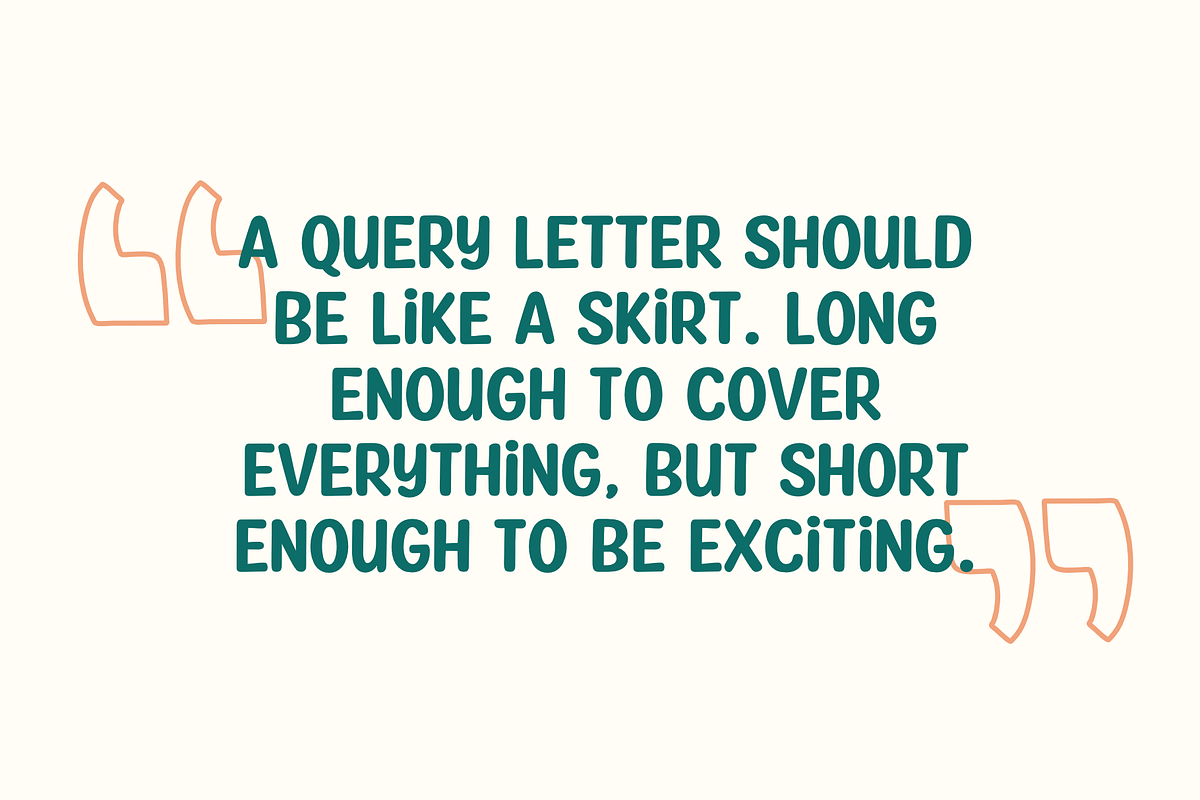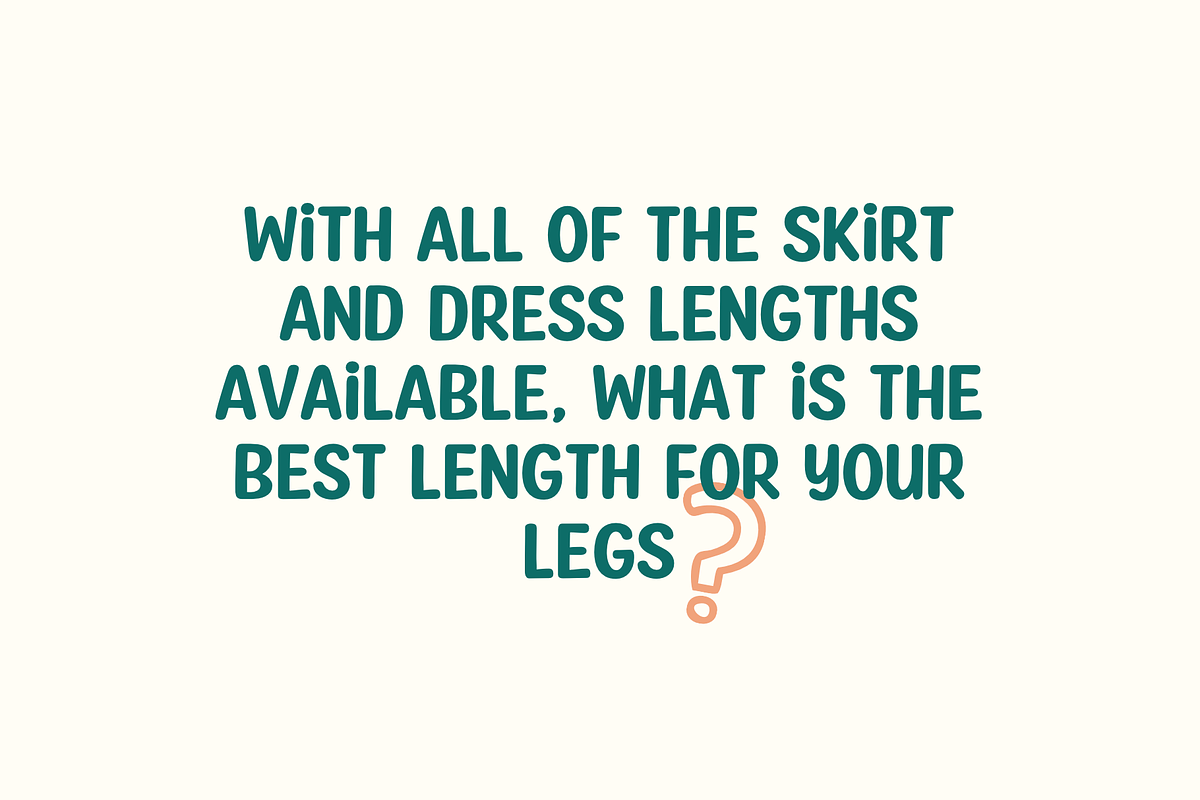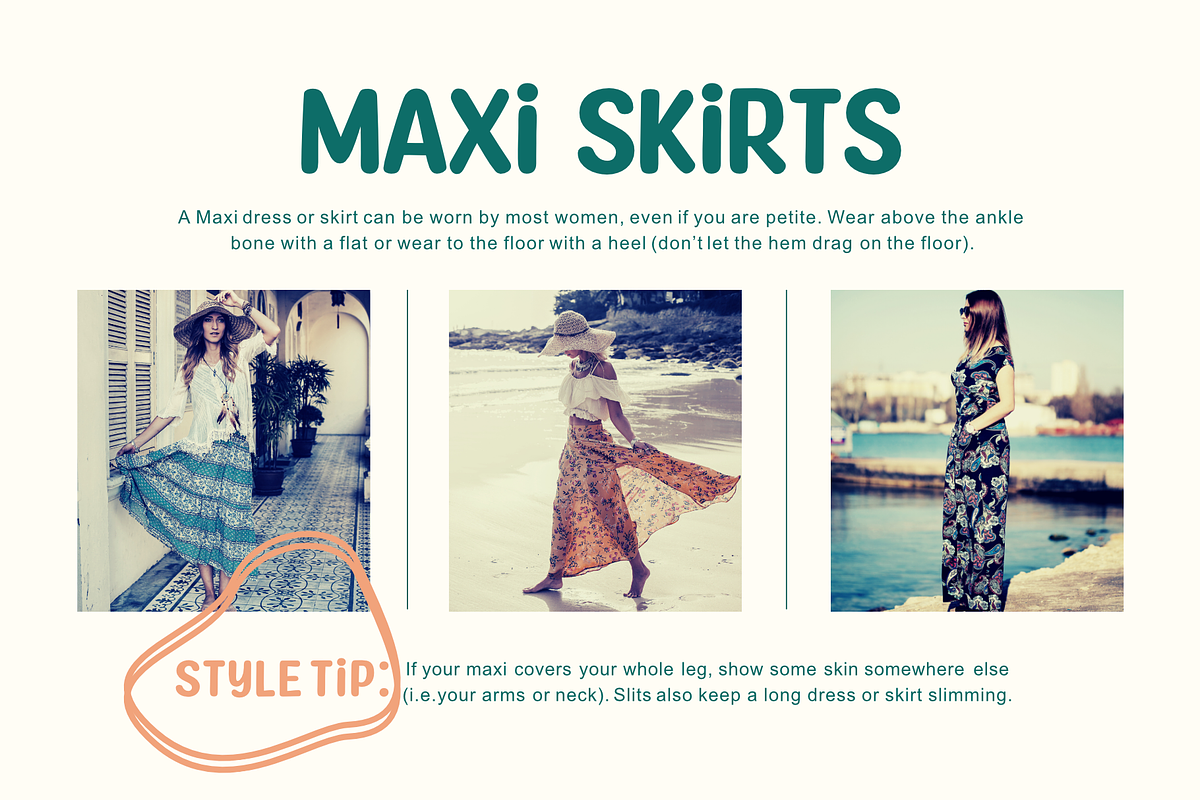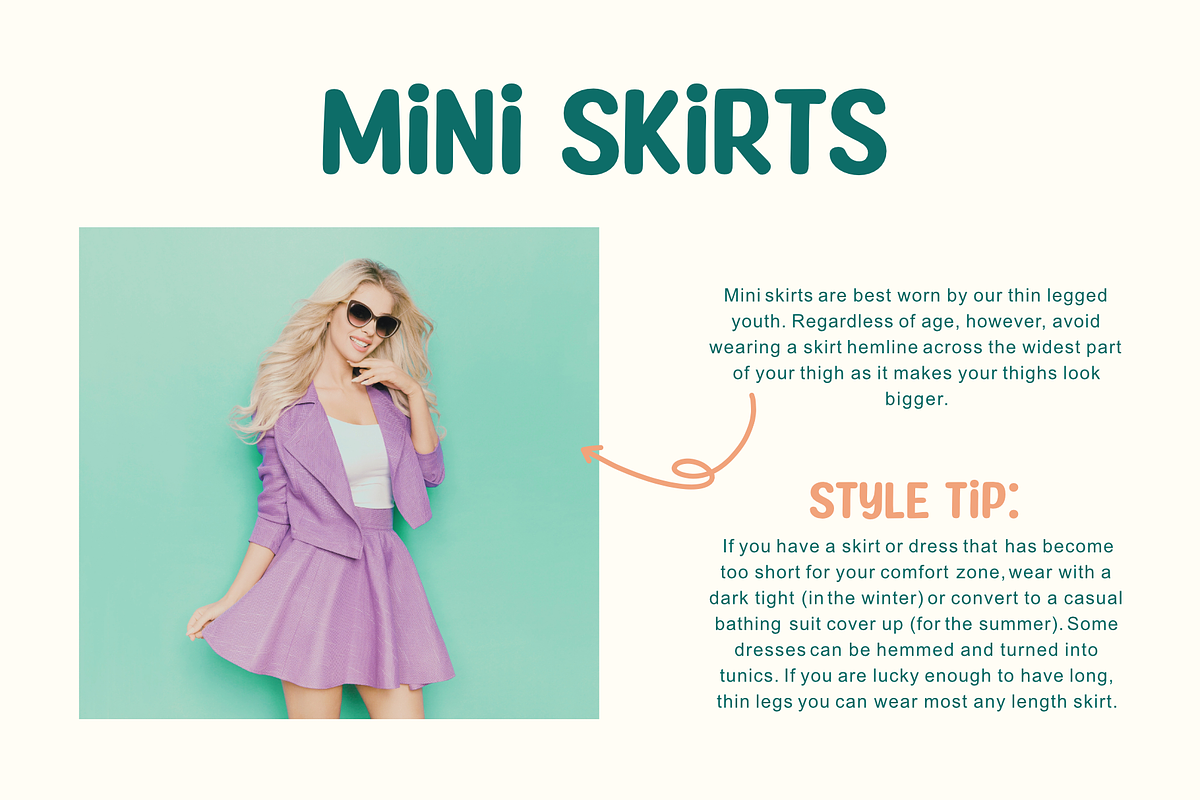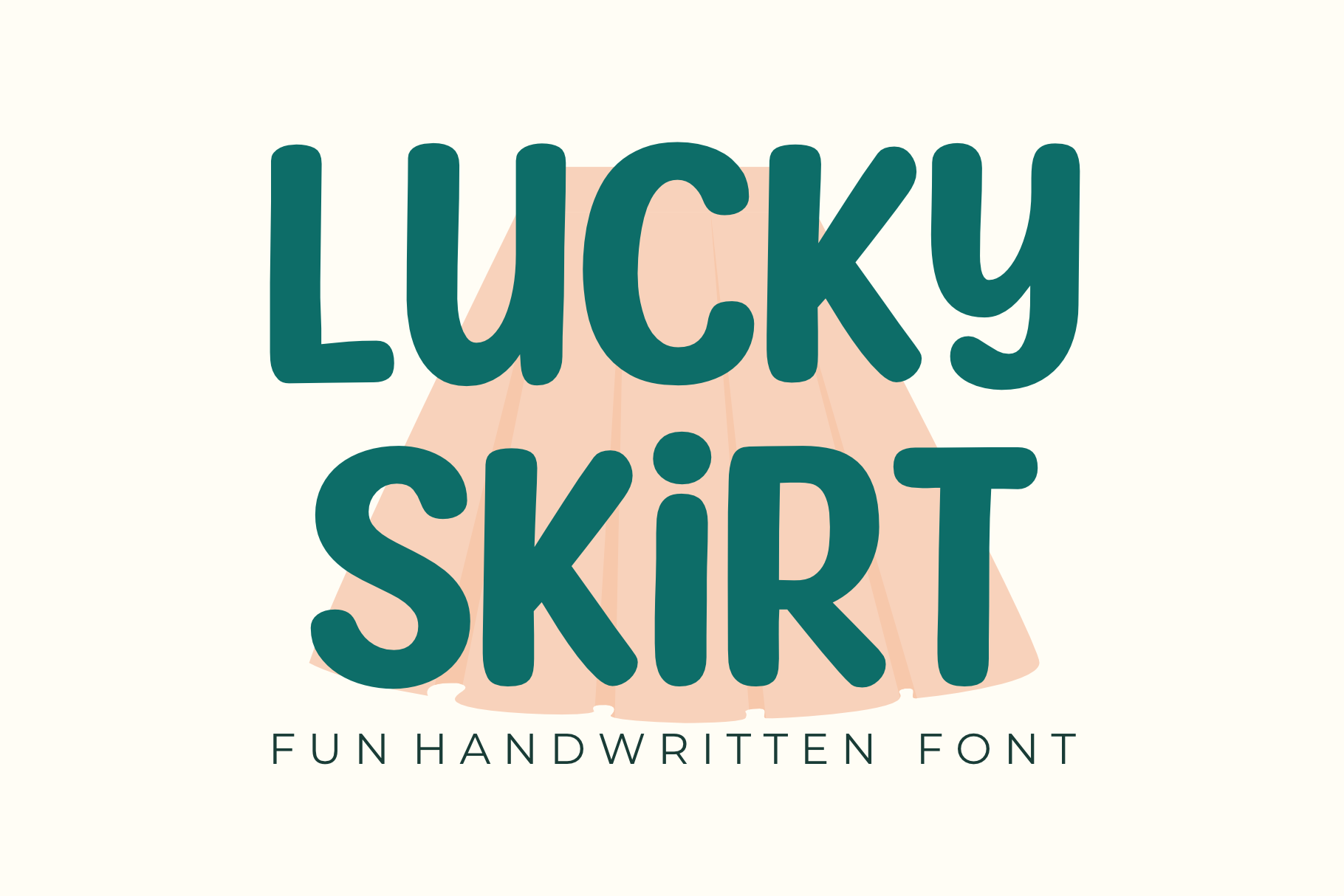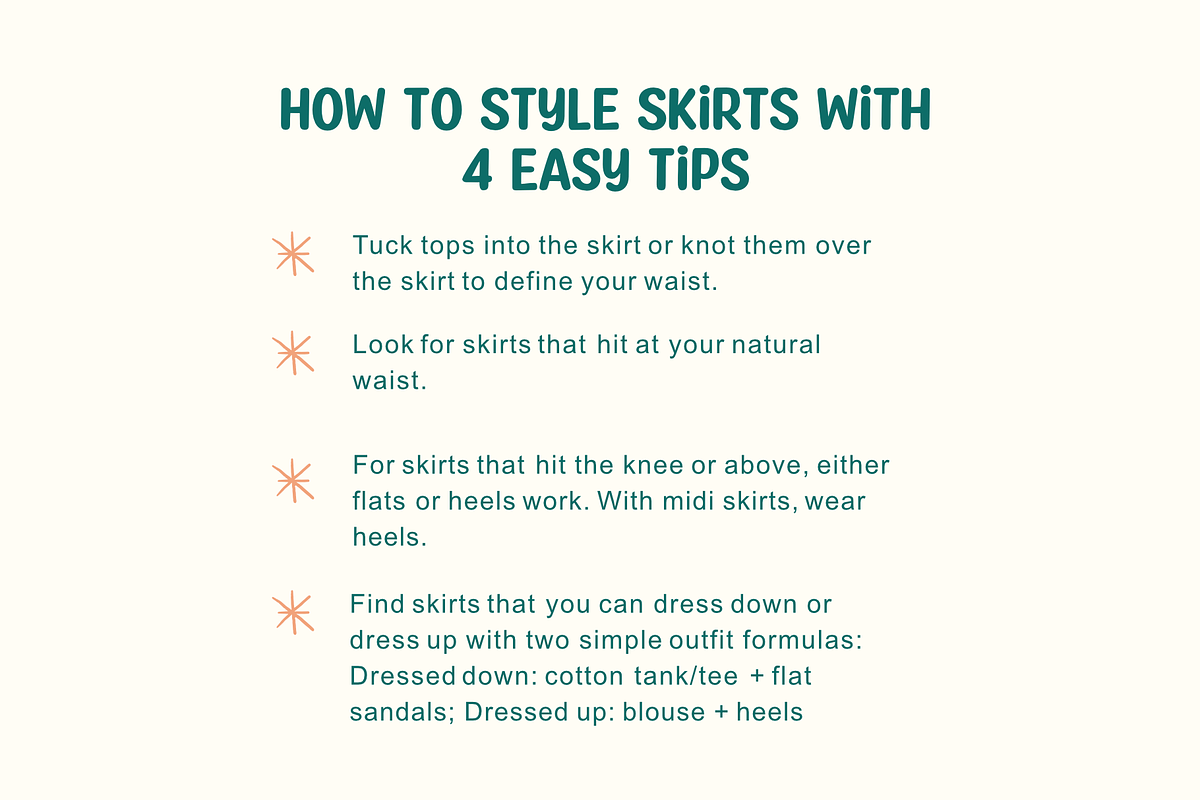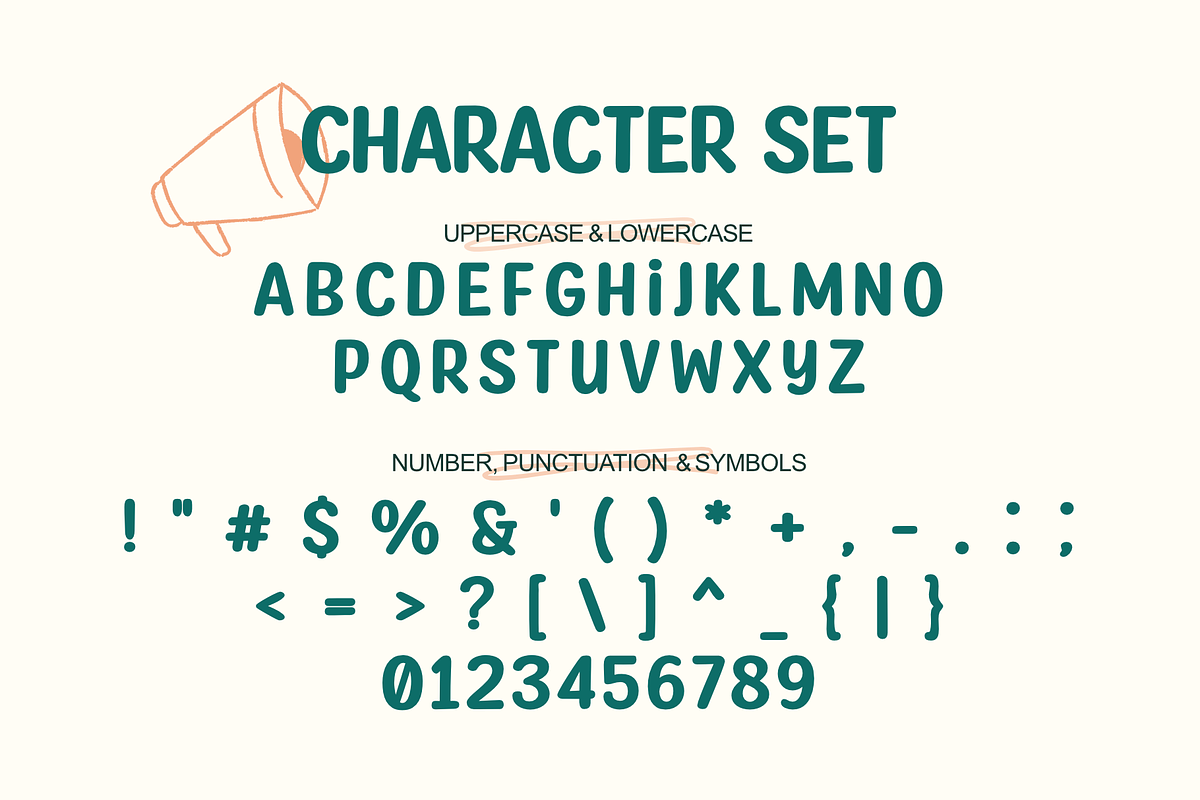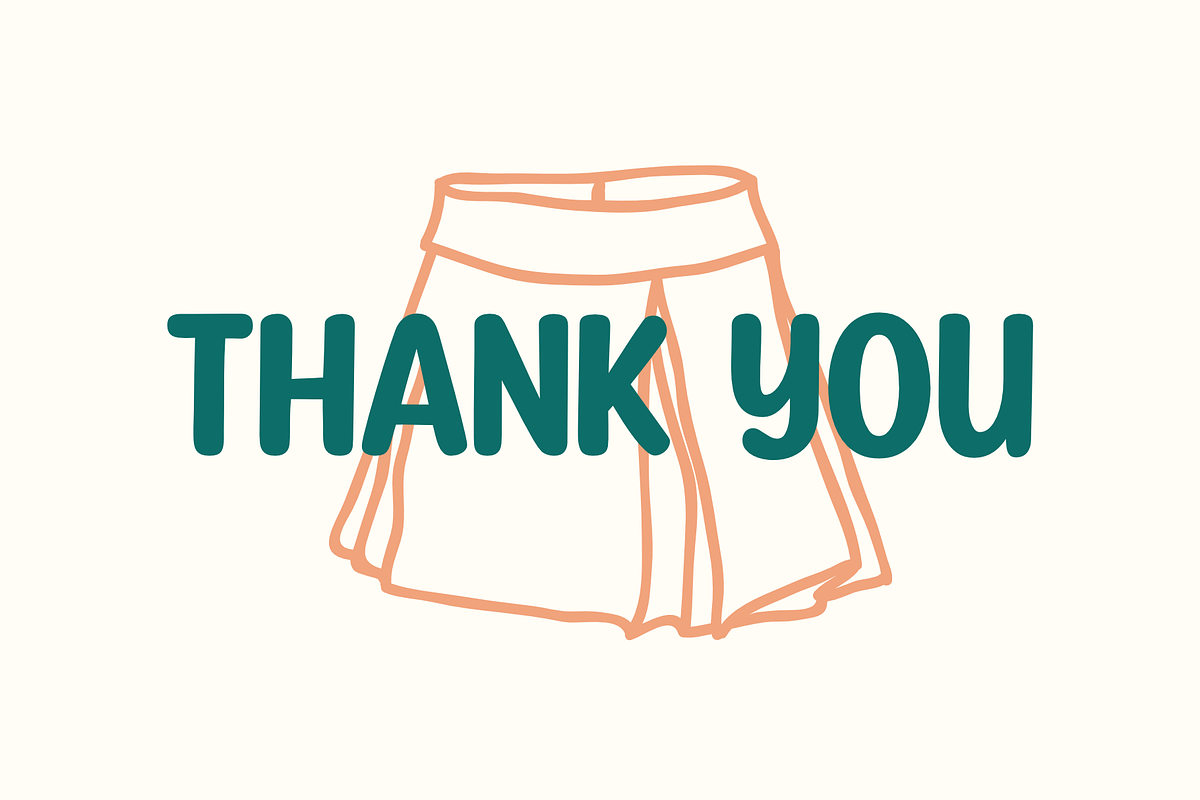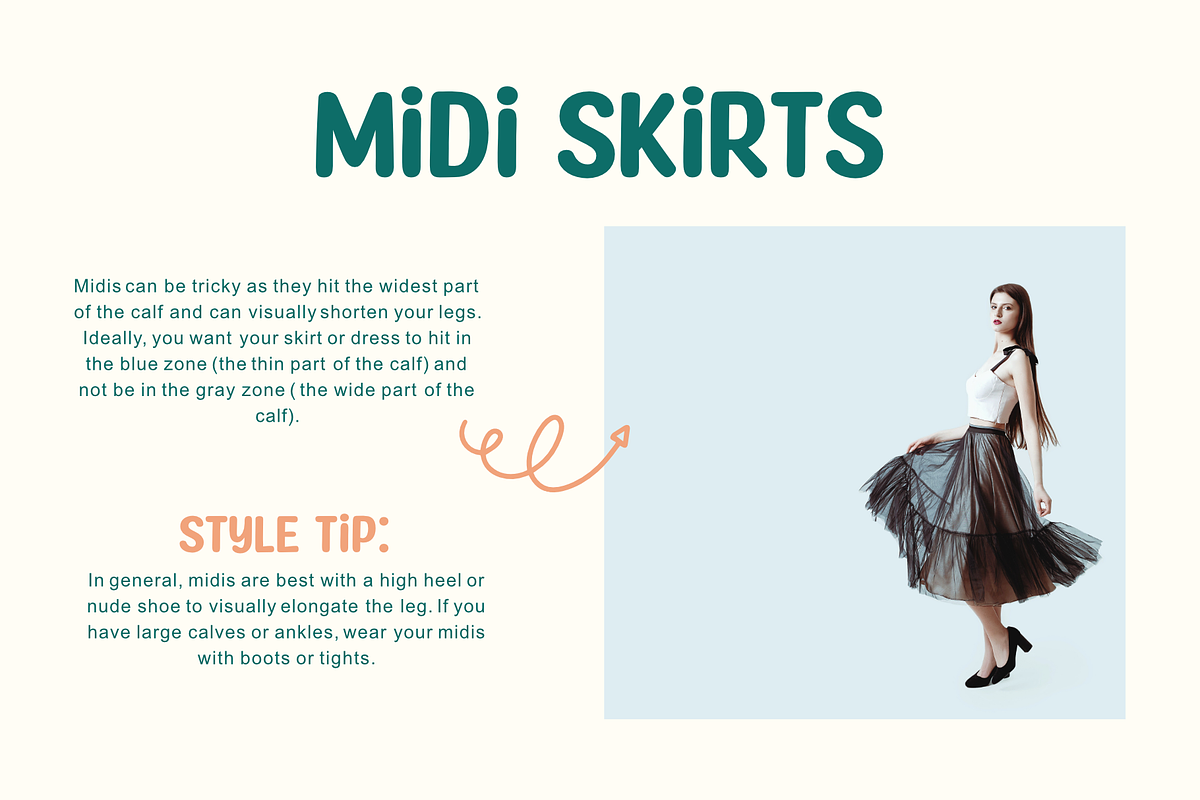
Lucky Skirt - a Handwritten Font
Lucky Skirt is a bold, fun, and playful display font. Its well-rounded and slightly chunky characters make this typeface an extremely versatile one! It can elevate the look of almost any of your beautiful creations!